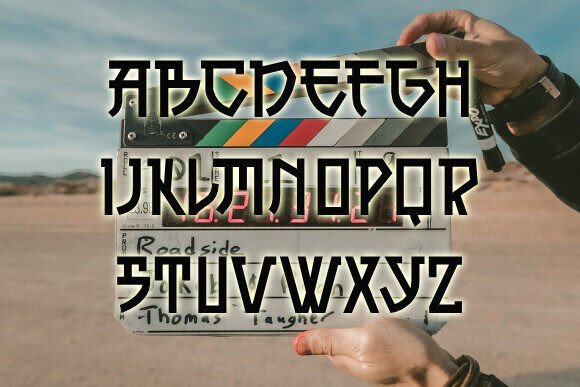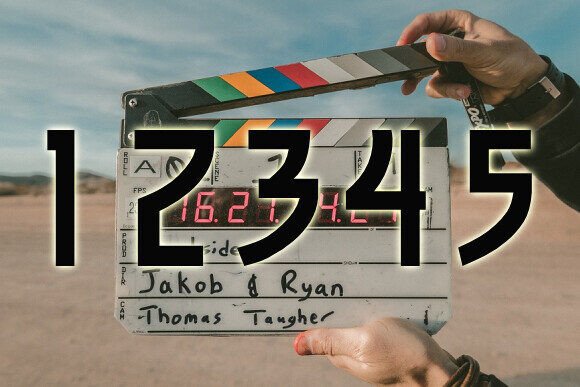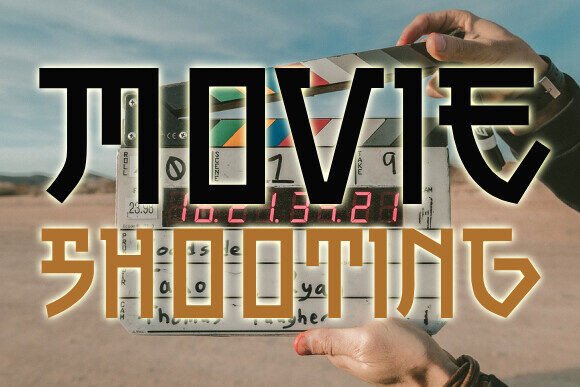
Introduction to Kurosawa Font
Kurosawa is awesome Japan – Inspired font that will make Your designs look great.
Use this font on posters, flyers and t-shirts .
Key Features of Kurosawa Font
Why Choose Kurosawa Font?
Kurosawa Font offers exceptional quality and versatility, making it a valuable addition to your design toolkit. Whether you’re creating for personal projects or commercial use, Kurosawa Font delivers professional results.